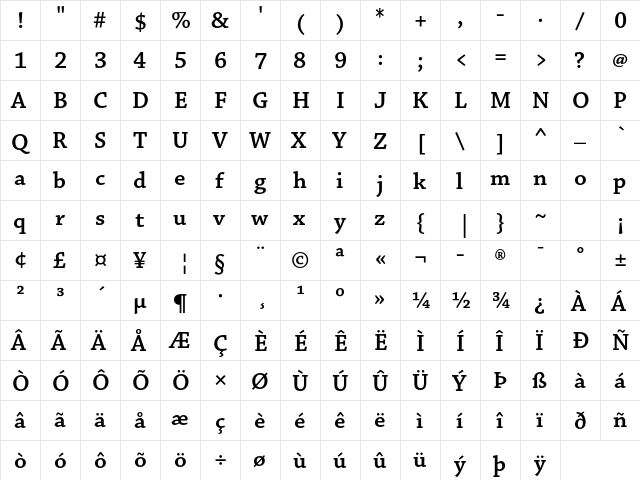
Chaparral Pro Semibold Caption
| Designer | Carol Twombly |
Design Context for Chaparral Pro Typeface
Chaparral Pro takes a measured approach to typography — its balanced proportions and neutral character make it a reliable workhorse for both digital and print work. Its bold stroke weight gives it real presence on the page.
Pro Tip: Use Chaparral Pro in both headline and body roles to test its range before committing to a single application.